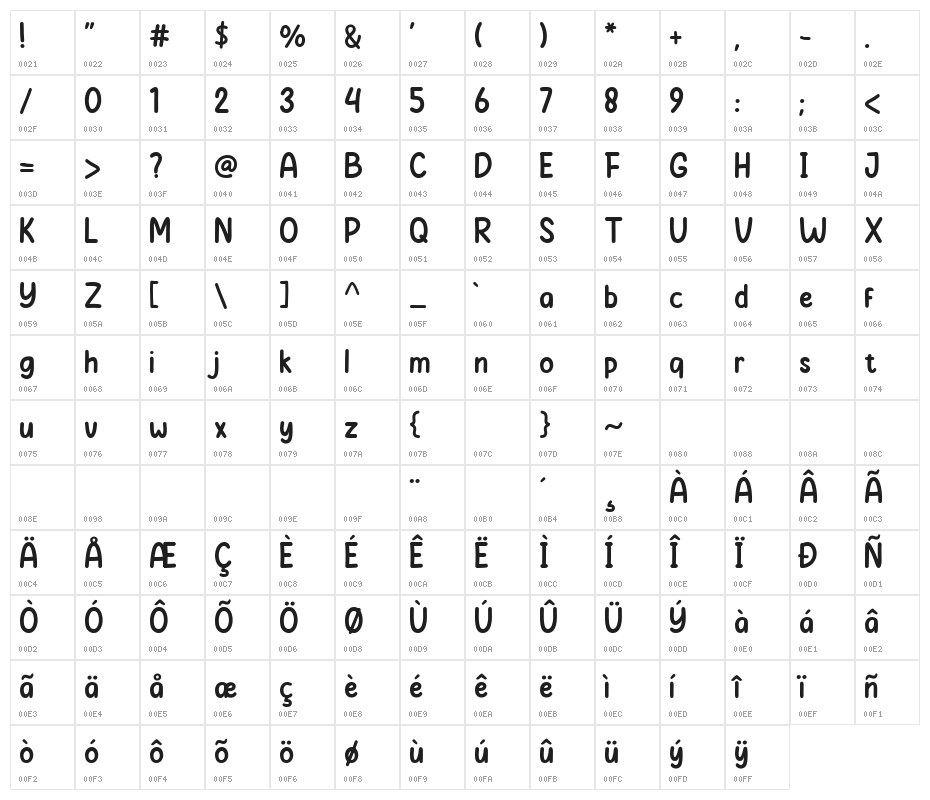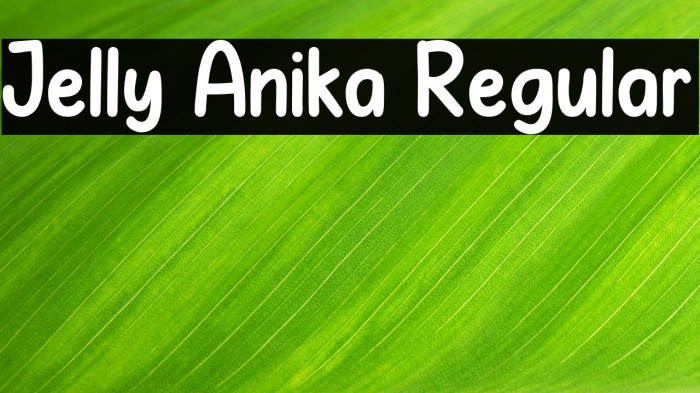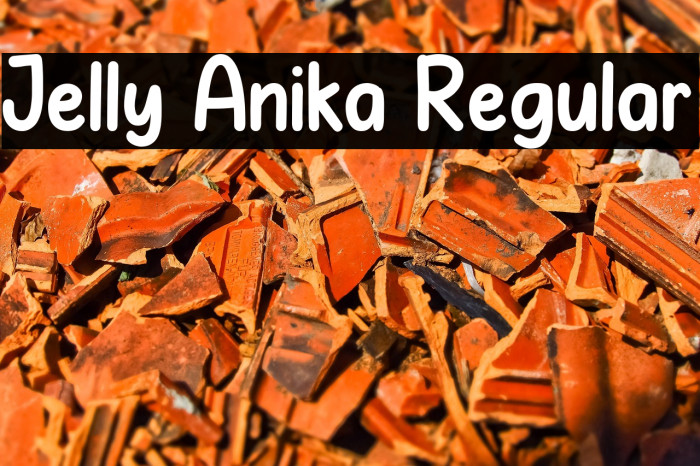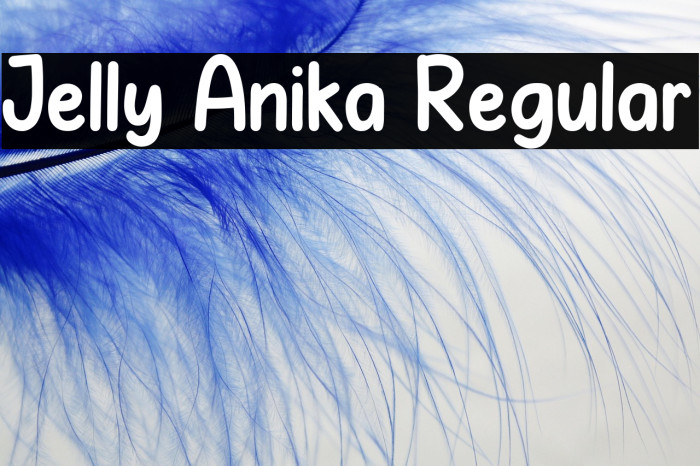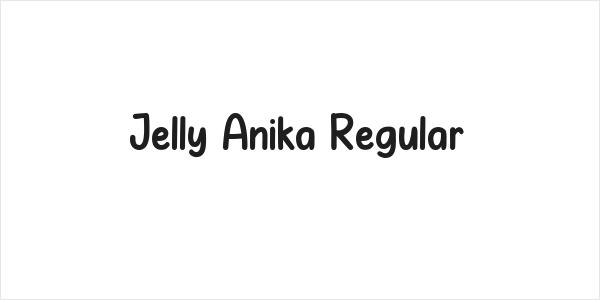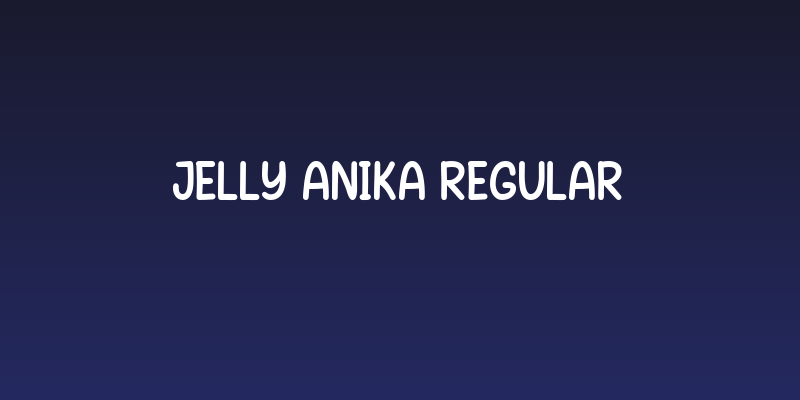
Jelly Anika Regular Font
Jelly Anika Regular Description
This playful and rounded font features a friendly and approachable style, characterized by its smooth curves and consistent stroke width. The letters have a slightly informal feel, making it ideal for projects that require a touch of whimsy and creativity. The uppercase and lowercase letters maintain a uniform appearance, with rounded edges that enhance its casual and fun aesthetic. The numerals and special characters are designed to match the overall style, ensuring a cohesive look across all text elements.
| Use Case | Headlines, Logos, Informal text |
| Proposed Projects | Ideal for children's books, playful branding, greeting cards, and casual invitations. |